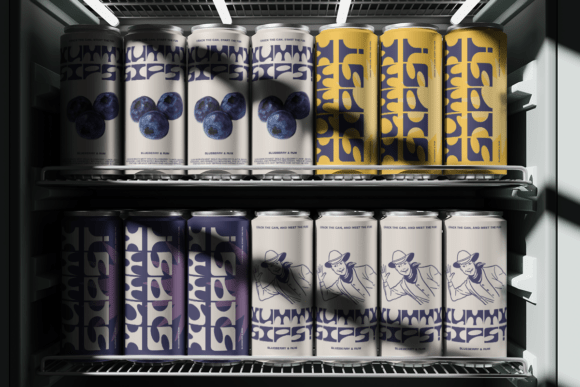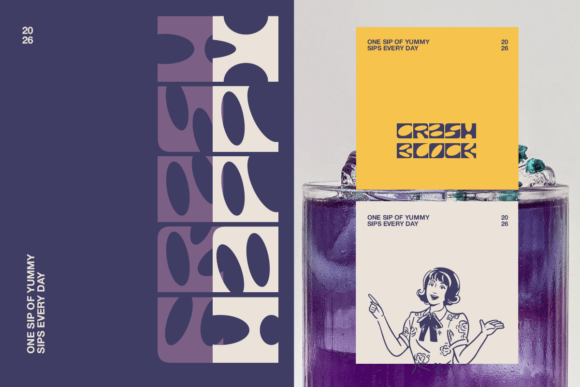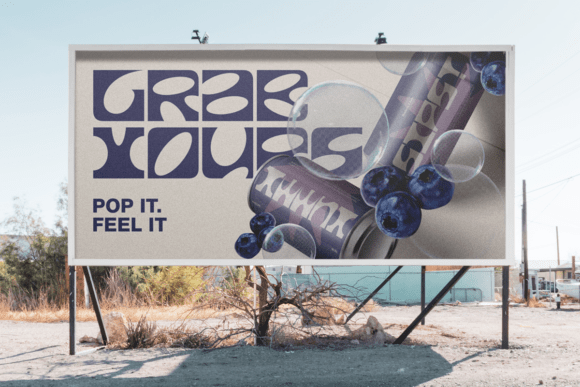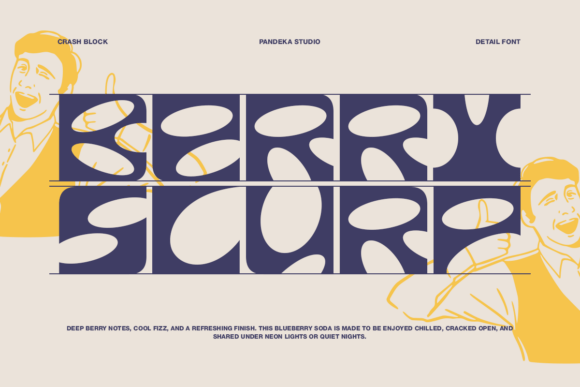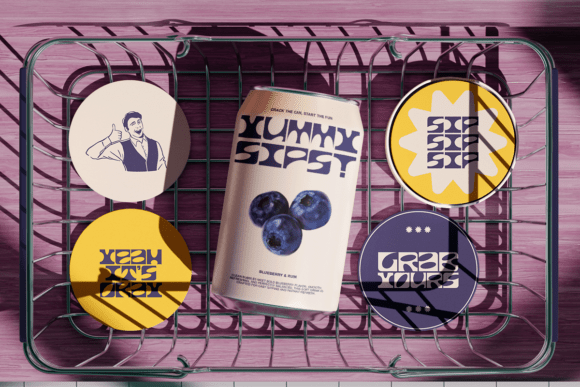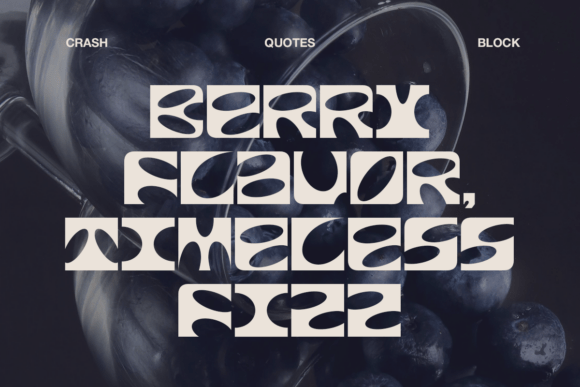
Introducing Crash Block Font: A Bold and Experimental Decorative Display Font
Are you looking for a font that can add a touch of modernity and creative energy to your designs? Look no further than Crash Block Font, a bold and experimental decorative display font that is sure to make a statement. With its artistic, modular, and playful character, this font is perfect for designers and crafters who want to add a unique and eye-catching element to their work.
What is Crash Block Font?
Crash Block Artsy Display is a bold and experimental decorative display font that features chunky geometric shapes and unique letter constructions. This font is designed to deliver a strong visual rhythm that feels modern, expressive, and full of creative energy. With its artistic and modular character, Crash Block Font is perfect for bold headlines, poster designs, and contemporary branding that wants to stand out.
Key Features of Crash Block Font
• Bold and Experimental Design: Crash Block Font features a bold and experimental design that is sure to grab attention.
• Chunky Geometric Shapes: The font is built with chunky geometric shapes that add a touch of modernity and creative energy to your designs.
• Unique Letter Constructions: Each letter is uniquely constructed to deliver a strong visual rhythm that feels modern and expressive.
• Artistic and Modular Character: The font has an artistic and modular character that makes it perfect for bold headlines, poster designs, and contemporary branding.
• Comes in 1 Style: Regular: Crash Block Font comes in 1 style: Regular, including uppercase and lowercase letters, numerals, punctuation, and symbol support.
Use Cases for Crash Block Font
Crash Block Font is ideal for a variety of design projects, including:
• Creative Branding: Use Crash Block Font to add a touch of modernity and creative energy to your brand’s identity.
• Art Posters: The font is perfect for creating eye-catching art posters that showcase your artistic style.
• Album Covers: Add a bold and experimental touch to your album covers with Crash Block Font.
• Packaging: Use the font to create unique and eye-catching packaging designs that stand out on store shelves.
• Street-Style Visuals: Crash Block Font is perfect for creating street-style visuals that showcase your artistic style.
• Digital Campaigns: Use the font to add a touch of modernity and creative energy to your digital campaigns.
Why Choose Crash Block Font?
There are many reasons why you should choose Crash Block Font for your design projects. Here are a few:
• Unique and Eye-Catching Design: The font features a unique and eye-catching design that is sure to grab attention.
• Modern and Expressive: Crash Block Font has a modern and expressive character that makes it perfect for bold headlines and poster designs.
• Easy to Read: Despite its bold and experimental design, Crash Block Font is easy to read and understand.
• Versatile: The font is versatile and can be used for a variety of design projects, from creative branding to digital campaigns.
In conclusion, Crash Block Font is a bold and experimental decorative display font that is perfect for designers and crafters who want to add a touch of modernity and creative energy to their work. With its artistic, modular, and playful character, this font is ideal for bold headlines, poster designs, and contemporary branding that wants to stand out. So why wait? Download Crash Block Font today and take your designs to the next level!